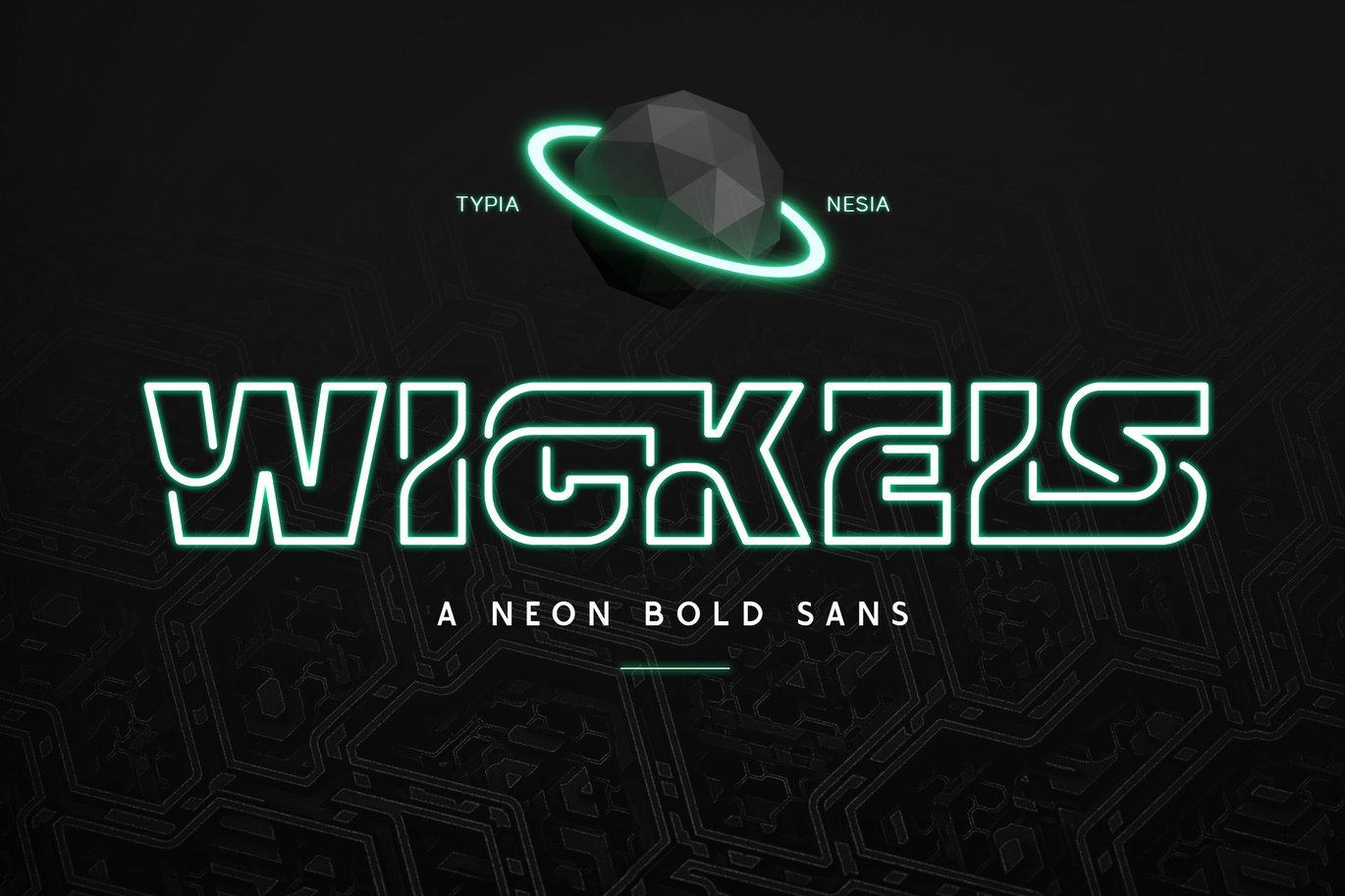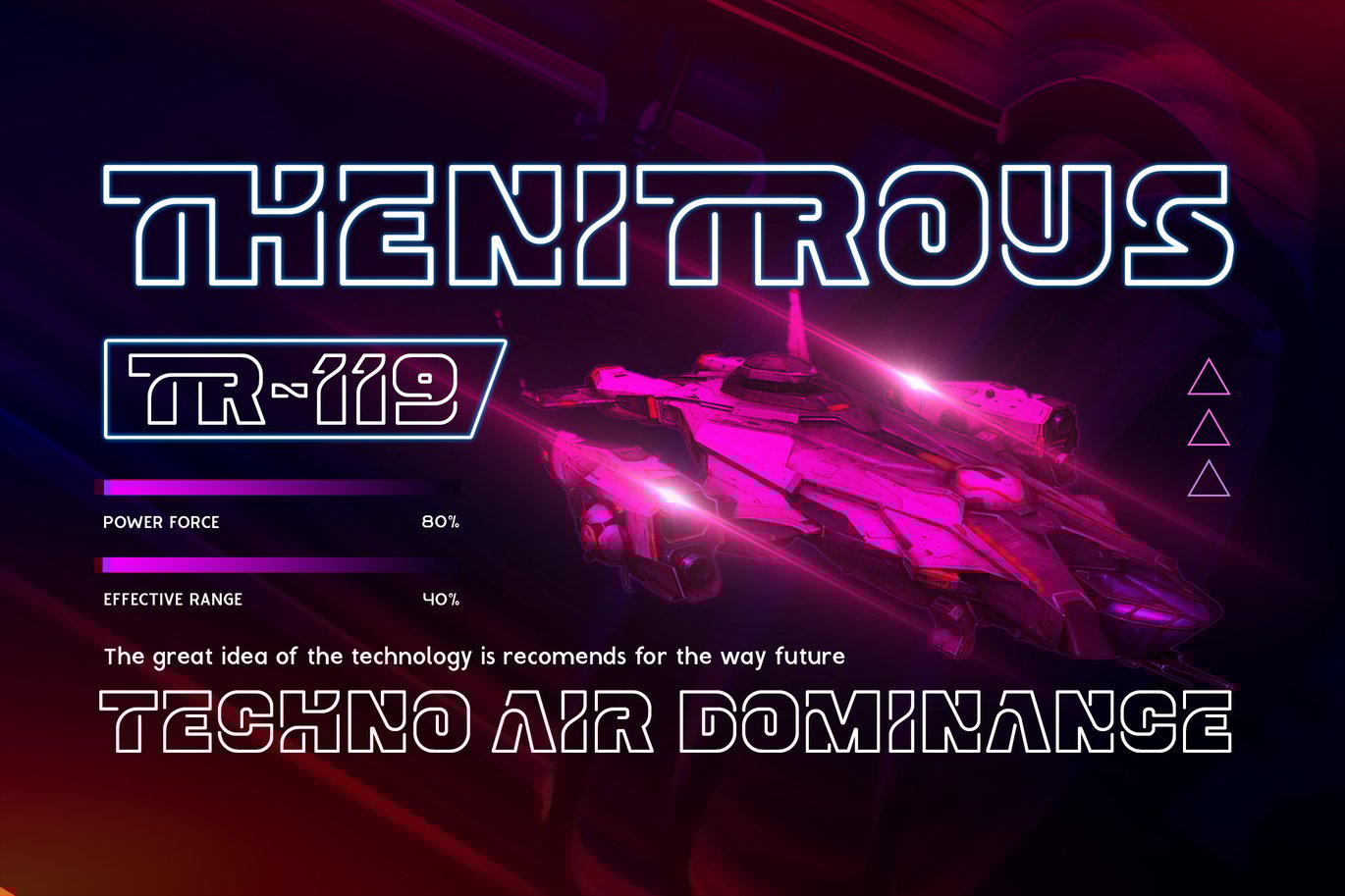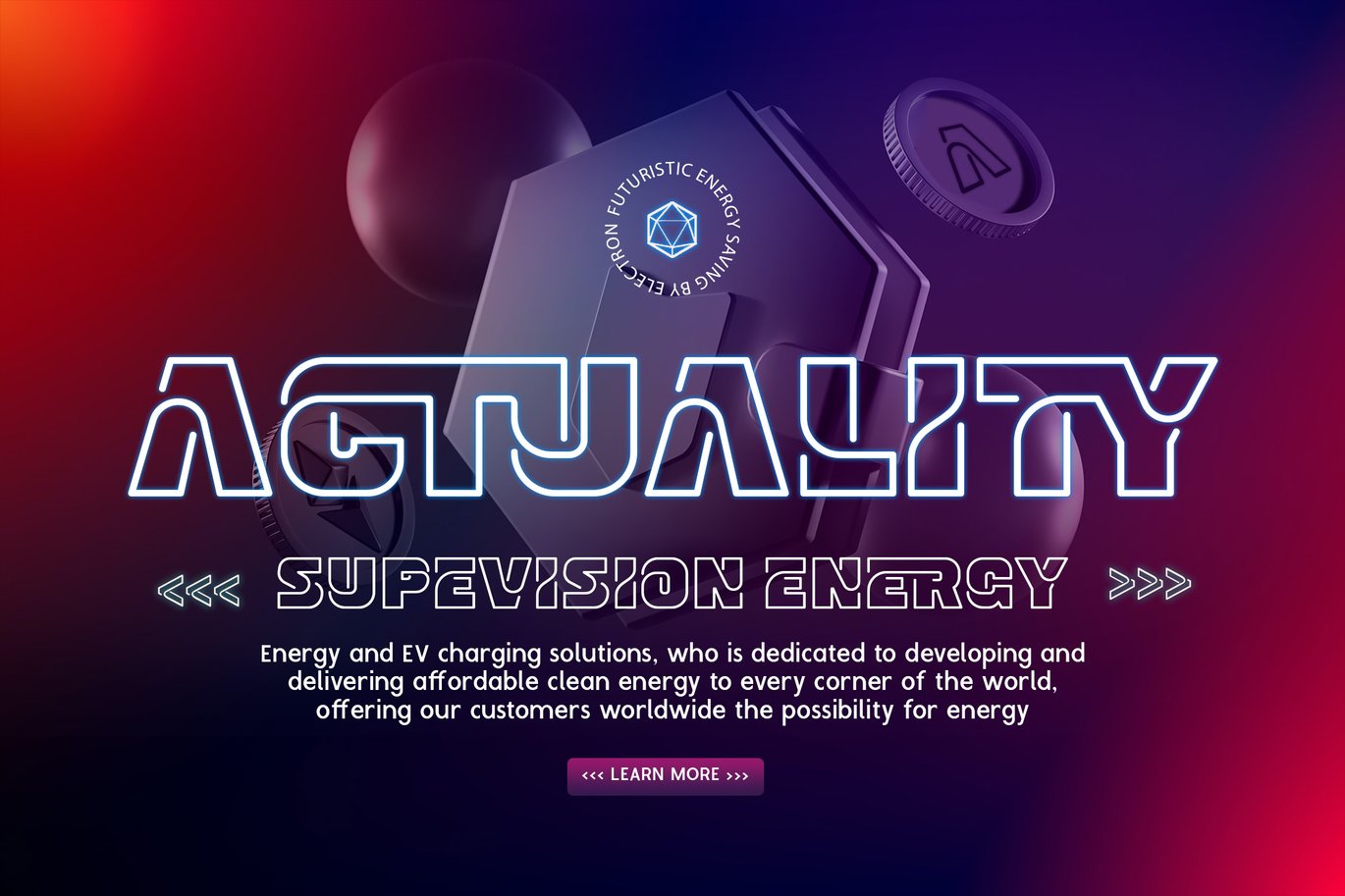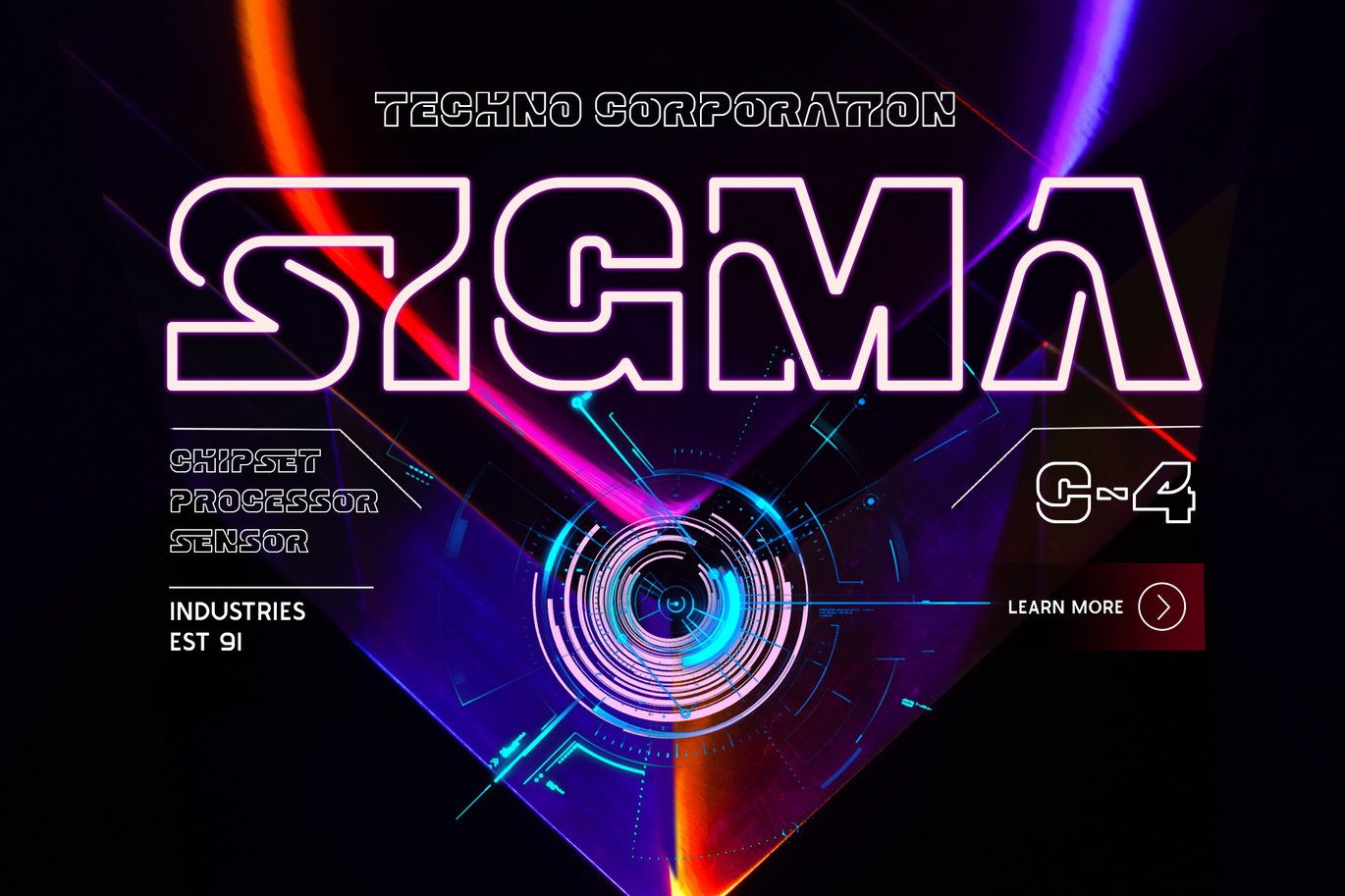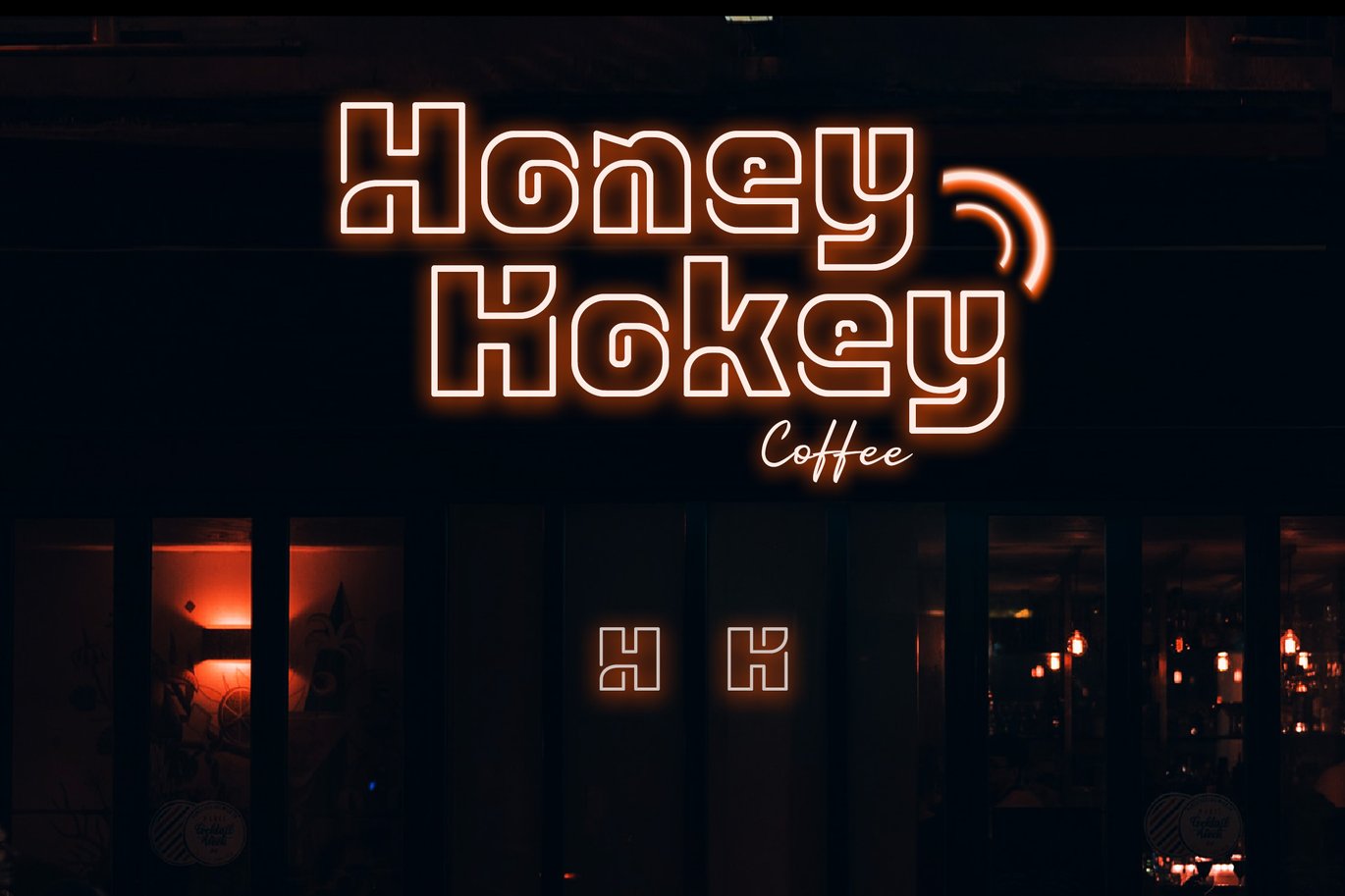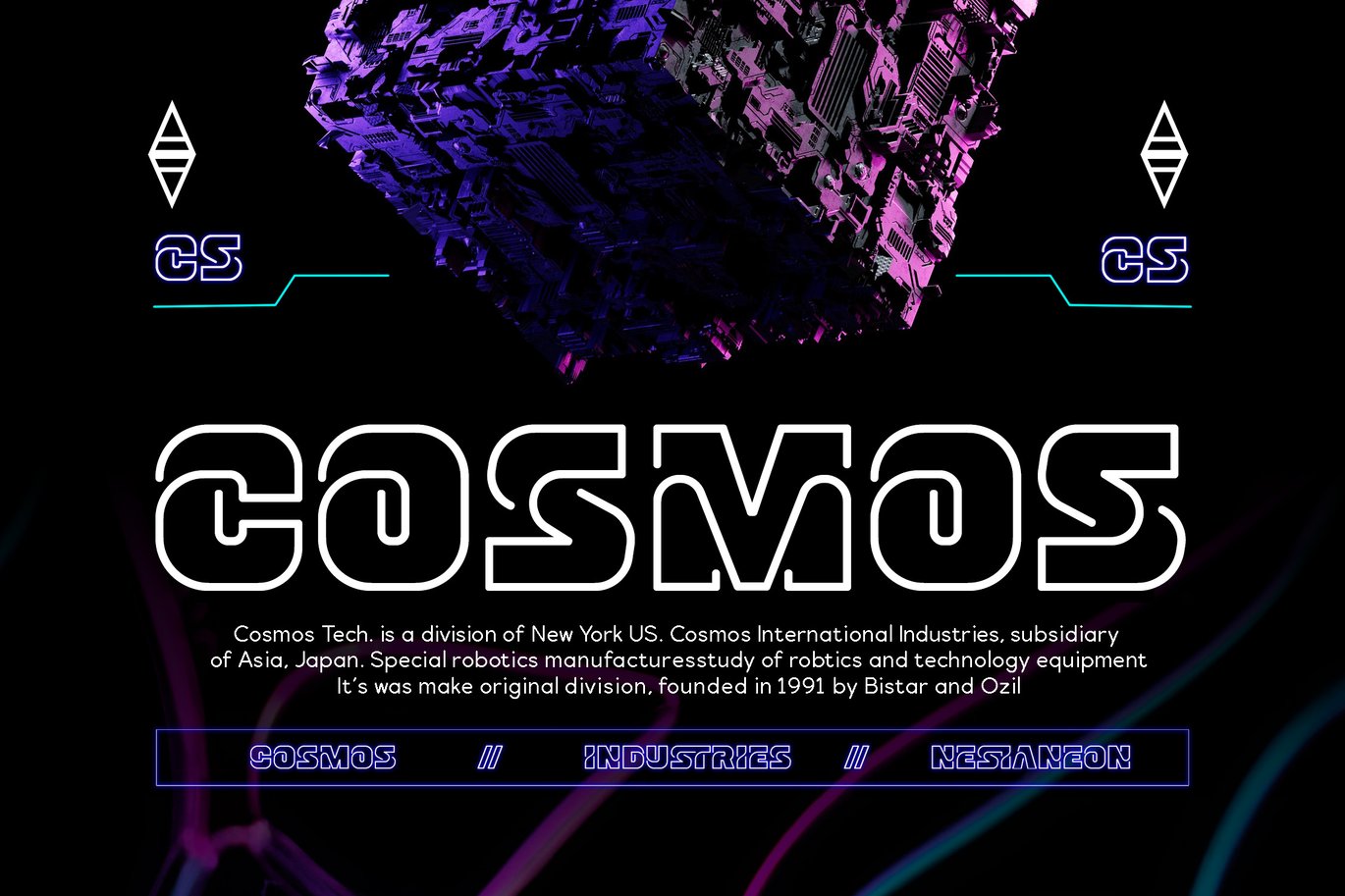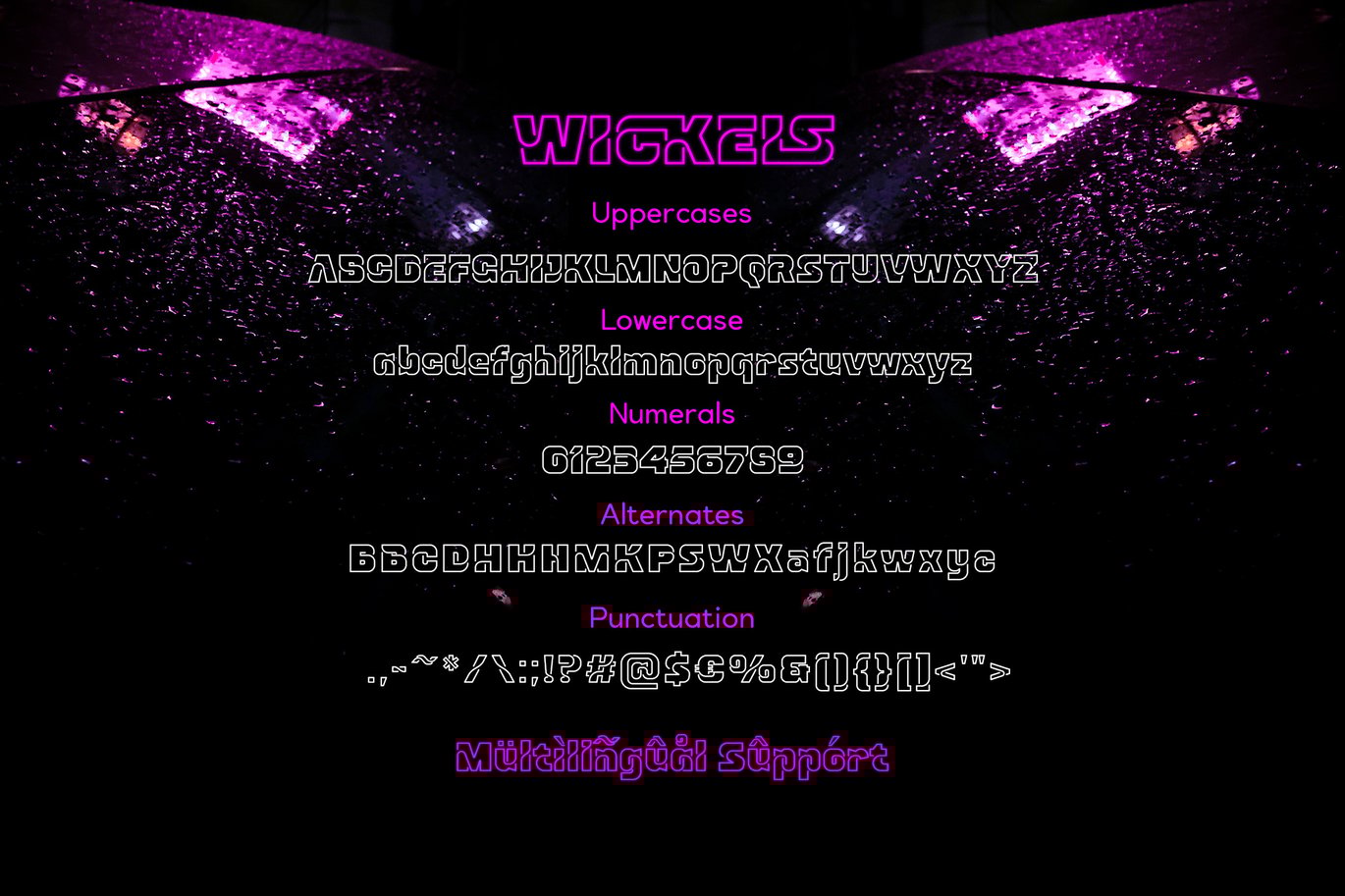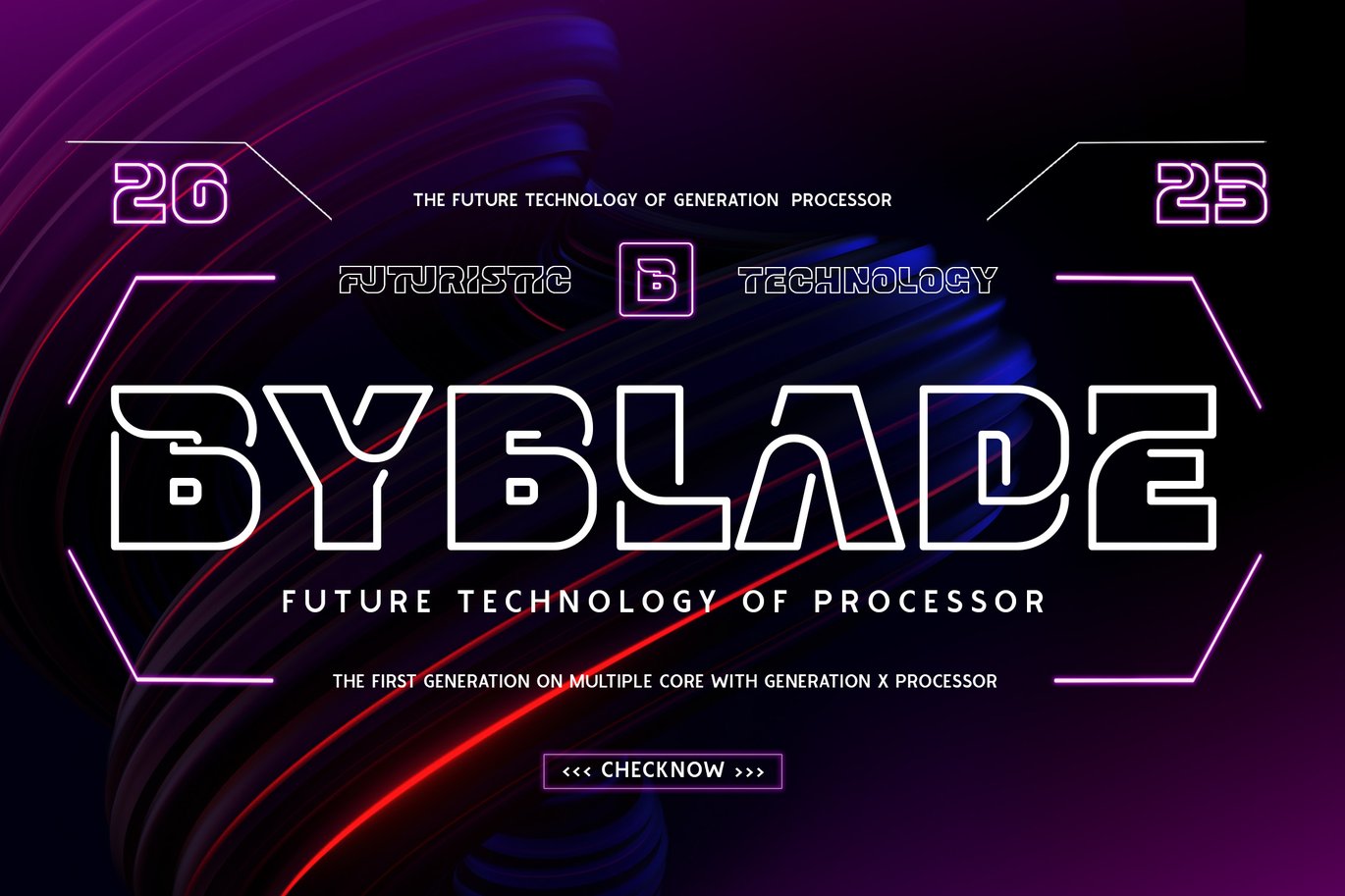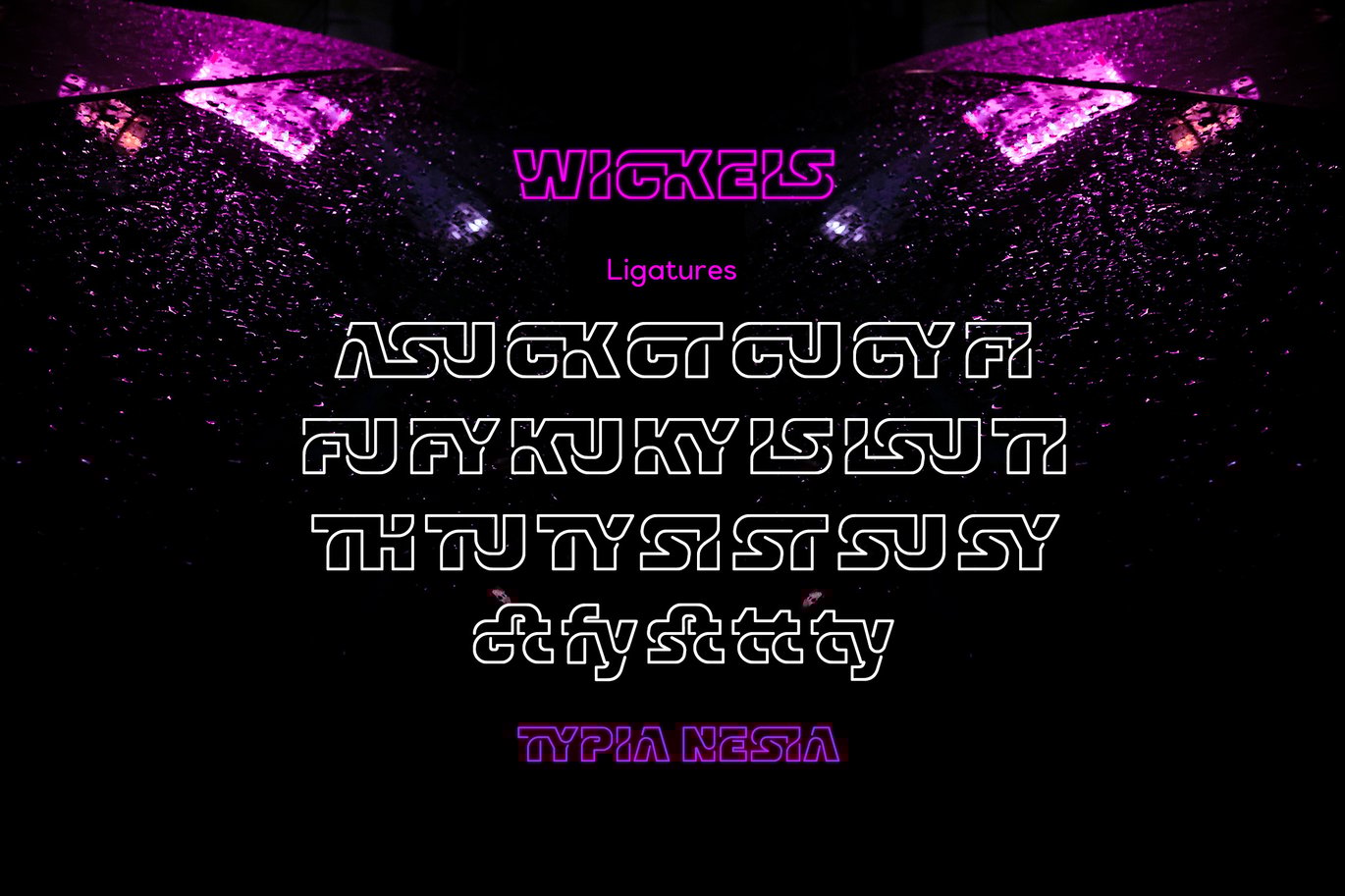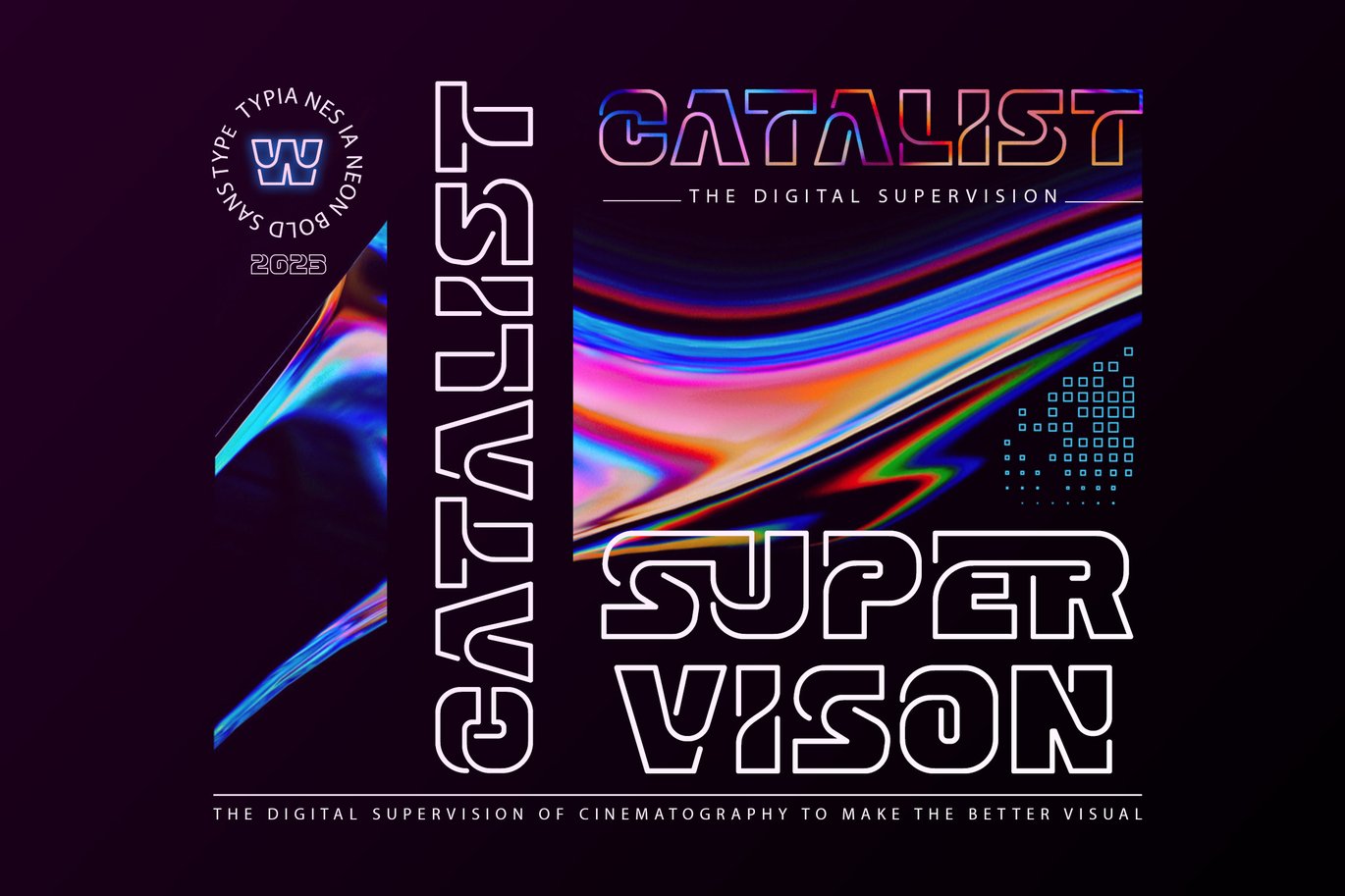
Wickels – Techno Scifi Neon Sign Font
Make a bold statement with Wickels, the perfect blend of futuristic and retro aesthetics.
Wickels is a techno sci-fi font that features an outline sans-serif style, reminiscent of retro cafe neon signs. This display font is designed to make a bold statement in various applications, including posters, signage, digital displays, and futuristic-themed designs. Wickels showcases a fusion of modern and retro aesthetics, with its sleek lines, geometric shapes, and captivating neon-like appearance. Its expertise lies in capturing the essence of a futuristic world and adding a touch of nostalgia with its retro-inspired design. Wickels is perfect for designers seeking to create visually striking and attention-grabbing designs in the techno sci-fi genre.
One of its standout features is the inclusion of ligatures, which are unique character combinations that create more harmonious and visually appealing letterforms. These ligatures allow designers to create cohesive and impressive designs. With Wickels, designers can produce standout techno sci-fi designs with a captivating retro touch.
Illuminate your designs with Wickels and embrace the futuristic retro vibe today!